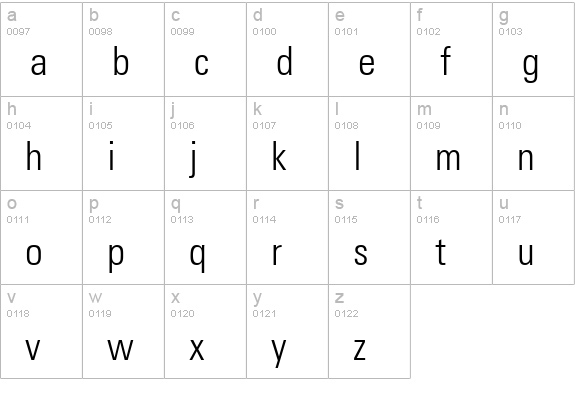
Nova Light Condensed SSi Light Condensed is a refined, elegant, condensed-width variant in the Nova typeface family \xE2\x80\x94 well suited to elegant body text, refined sub-headings, and luxury branding.
Nova Light Condensed SSi Light Condensed font is a sleek and modern typeface that exudes elegance and sophistication. Its clean lines and minimalist design make it perfect for a wide range of design projects, from branding to editorial layouts. The light condensed weight adds a touch of airy refinement to any text, making it ideal for titles and headlines. Best of all, Nova Light Condensed SSi Light Condensed font is available for free download at FontsMarket.com. This means you can easily access this stylish font and incorporate it into your projects without any cost. Don't miss out on the opportunity to enhance your designs with this beautiful and versatile typeface.